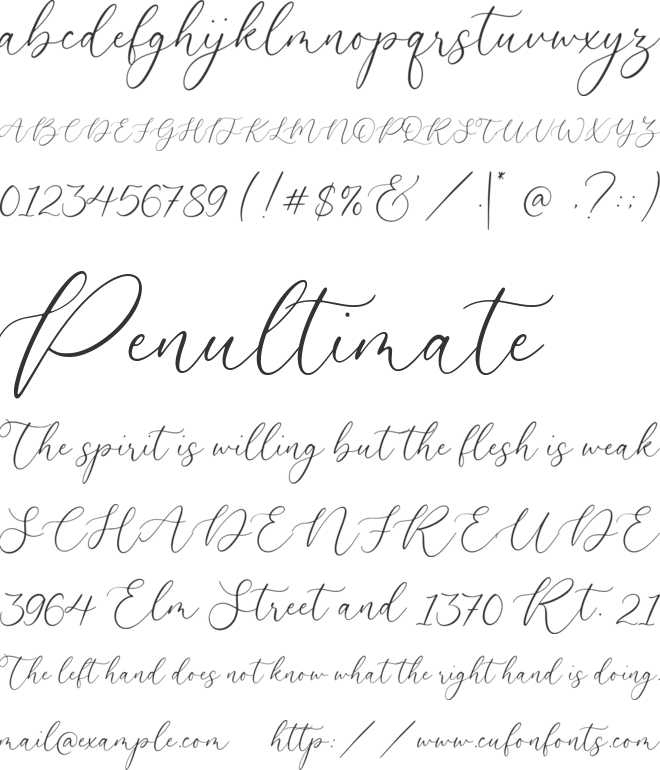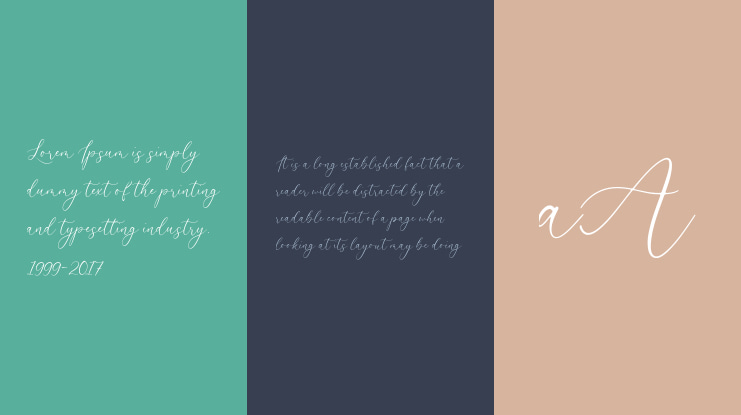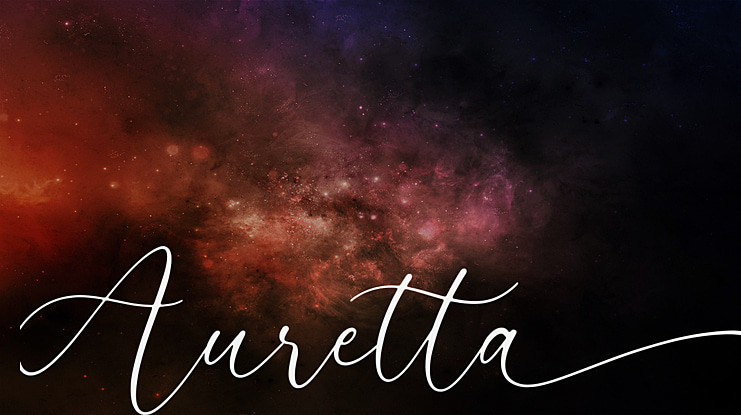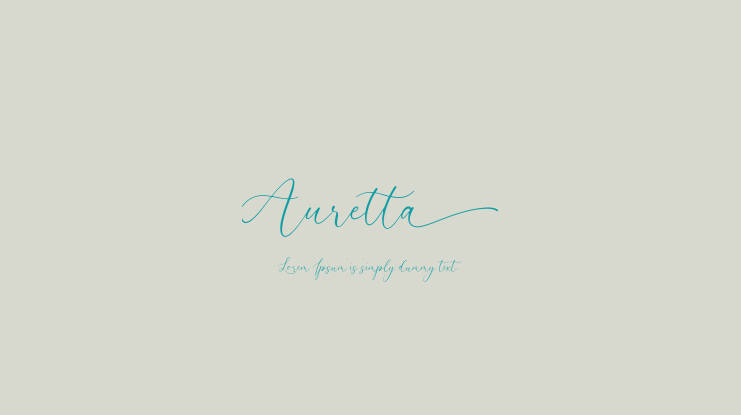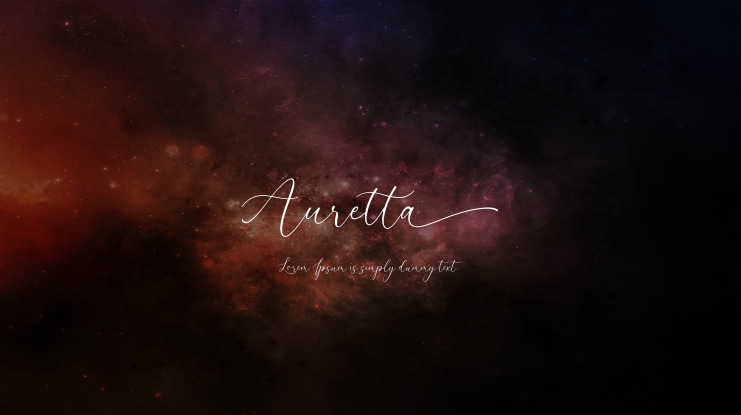
Auretta Font
Proudly Present Auretta
Auretta is a Handwritten script font that is modern and fresh, and will bring a warm and inviting feel to your business. Take advantage of the fonts and experience the magic for yourself.
Auretta is perfect for product packaging, branding project, megazine, social media, wedding, or just used to express words above the background.
Balqueen Font Features premium :
-Full Set of standard alphabet and punctuation
-Extra set Alternate ending lowercase